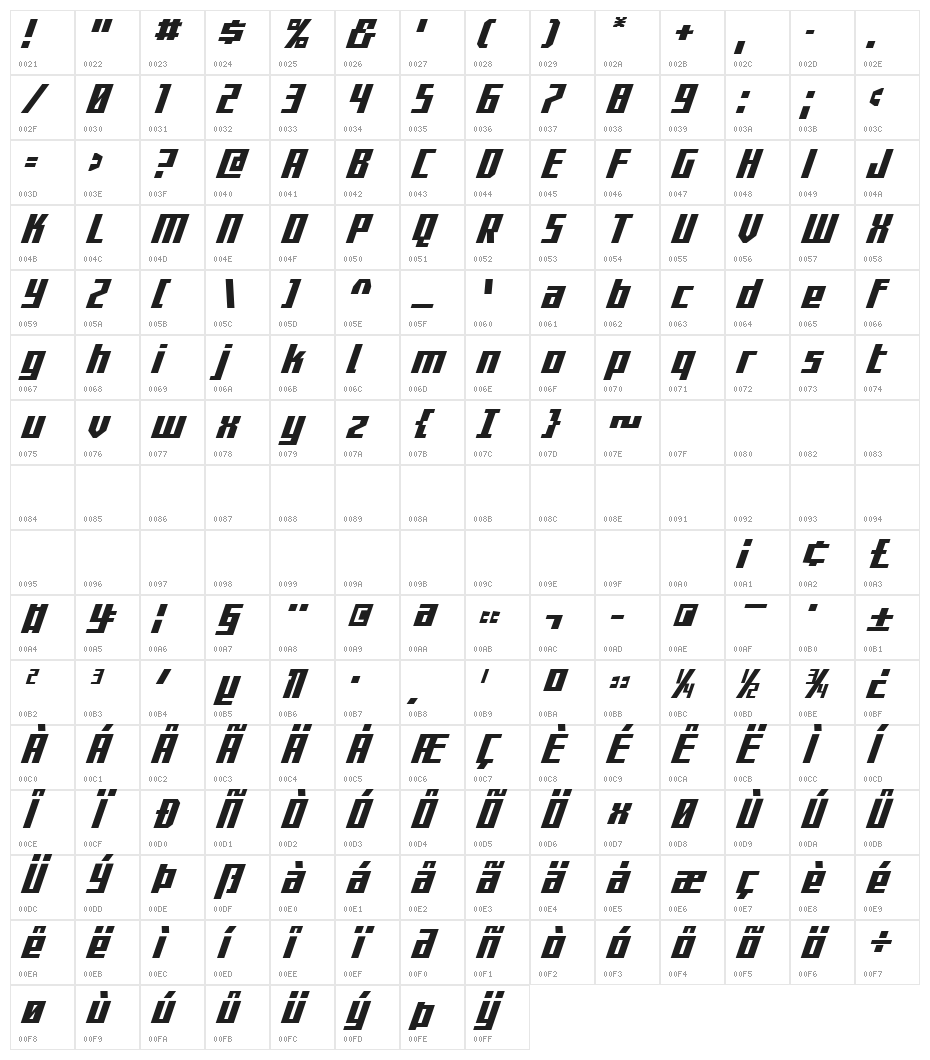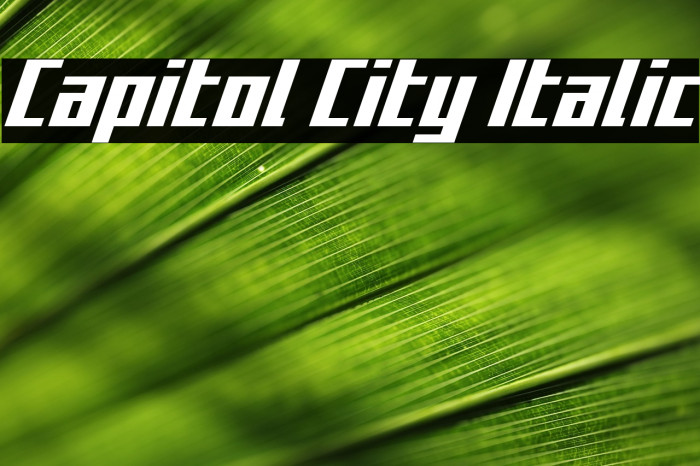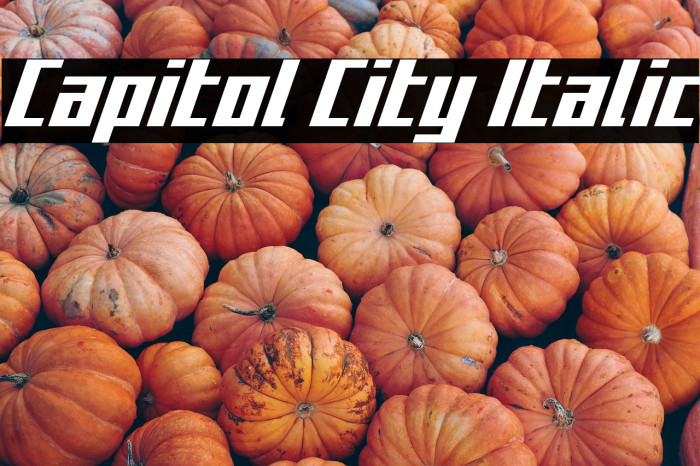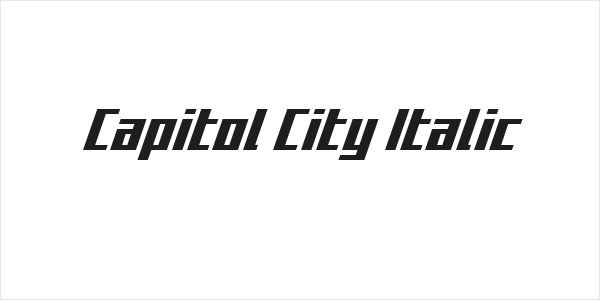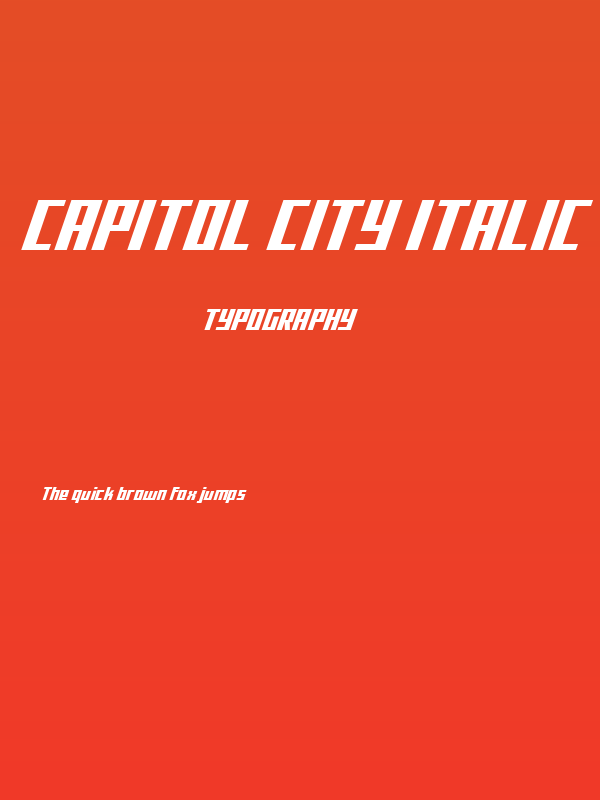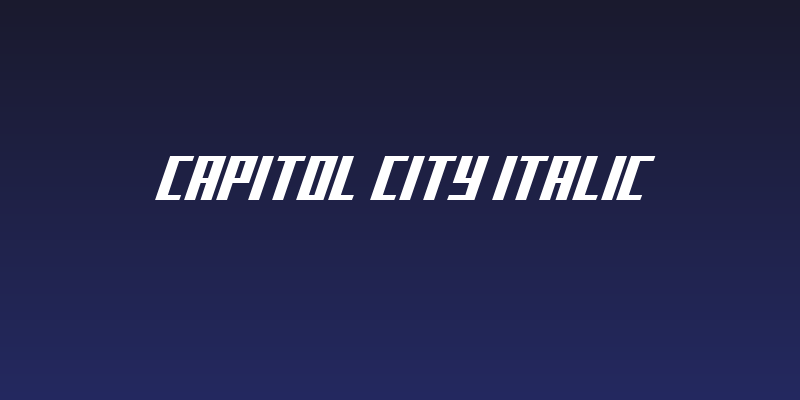
Capitol City Italic Font
Capitol City Italic Description
This typeface features a bold, angular style with a strong italic slant, giving it a dynamic and energetic appearance. The characters are sharply defined with a futuristic edge, making them stand out prominently. The uppercase and lowercase letters maintain a consistent geometric structure, while the numbers and special characters complement the overall design with similar angular forms. The font's boldness and unique style make it suitable for impactful visual statements.
| Overall Style | Futuristic, Dynamic |
| Proposed Projects | Ideal for sci-fi themed designs, video game titles, sports branding, and dynamic posters. |